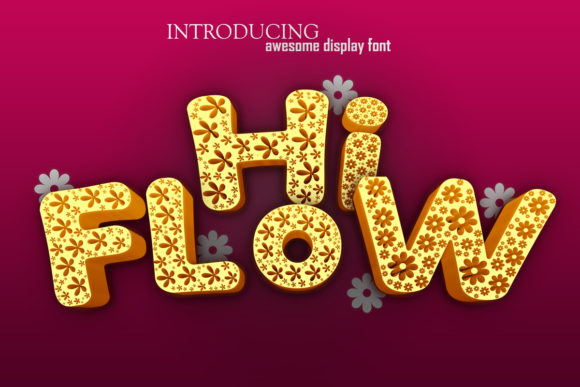
In the realm of digital expression, where words dance across screens and pixels blend to convey emotions, there exists a font that embodies the essence of love, tenderness, and heartfelt connection. Allow us to unveil Hi Flow, a decorative font crafted with the utmost care and attention to detail, designed to elevate your creative endeavors to new heights of beauty and elegance.
Hi Flow's essence lies in its fluidity, a harmonious interplay of curves and lines that mimics the ebb and flow of human emotions. Its characters, meticulously crafted by the skilled hands of rulihoki studio, possess a captivating charm that effortlessly captures the eye, inviting you on a journey of artistic exploration.
Whether you're a seasoned designer seeking inspiration or a passionate hobbyist eager to infuse your projects with a touch of heartfelt elegance, Hi Flow stands ready to transform your creative vision into a captivating reality. Its versatility extends across a myriad of applications, from the delicate strokes of love letters and heartfelt cards to the captivating allure of product packaging and eye-catching watermarks.
Imagine your words, adorned with the grace and eloquence of Hi Flow, flowing effortlessly across the page, carrying your heartfelt messages with a touch of sophistication and charm. Its stylish aura breathes life into your designs, captivating your audience with its innate beauty and inviting them to immerse themselves in the emotional tapestry you weave.
With Hi Flow by your side, your creativity knows no bounds. Whether you seek to add a touch of romance to your wedding invitations, elevate the allure of your social media posts, or leave a lasting impression with your professional presentations, Hi Flow effortlessly transforms your words into visual masterpieces.
Discover the transformative power of Hi Flow, and unlock a world of creative possibilities where emotions flourish and hearts resonate. Let your designs speak volumes, carrying the essence of love, joy, and connection wherever they go. Embrace the beauty of Hi Flow, and let your imagination soar.